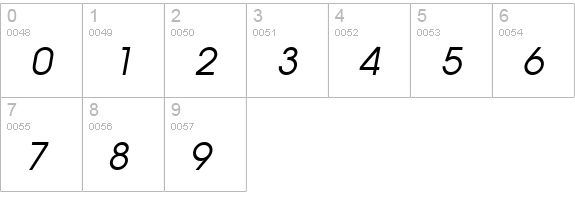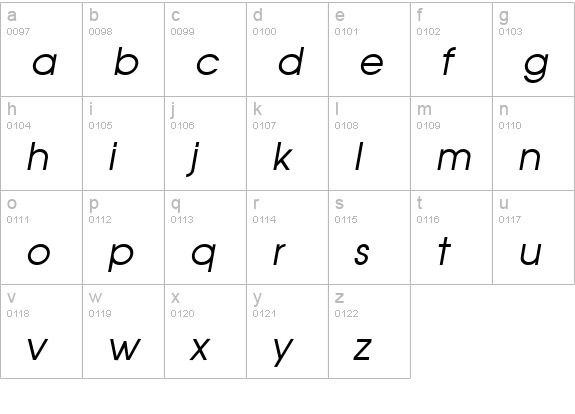
Moderne Italic Font Details
Moderne Italic is a distinctive, italic variant in the Moderne typeface family \xE2\x80\x94 well suited to design and typography projects.
The Moderne Italic font is a sleek and sophisticated typeface that exudes elegance and modernity. Its stylish slanted design gives it a unique and contemporary look, making it perfect for a wide range of design projects. With its clean lines and distinctive curves, Moderne Italic is sure to attract attention and add a touch of class to any text or branding. Best of all, Moderne Italic is available for free download at FontsMarket.com. This means you can easily access this stunning font and incorporate it into your designs without any cost. Whether you're working on a website, a poster, a logo, or any other creative project, Moderne Italic will bring a touch of sophistication and style to your work. Don't miss out on this fantastic opportunity to enhance your designs with the beautiful Moderne Italic font – download it for free today at FontsMarket.com!